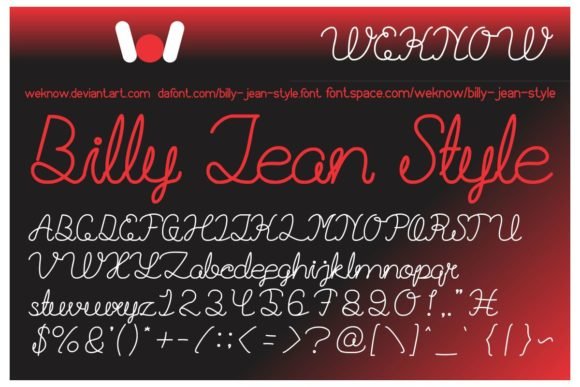
The Font that Steals the Show: Elevate Your Designs with Billie Jean Font
You know that moment when you’re working on a design project, and everything just falls into place? The colors, the layout, the text – it all comes together to create something truly special. For designers, that “aha” moment is what makes all the hard work worth it. And what’s often the secret to making that happen? The right font.
Enter Billie Jean Font, a script font with a dynamic feel that’s guaranteed to take your designs to the next level. This stylish font is perfect for adding a touch of elegance and sophistication to your projects. Whether you’re working on a logo, a brochure, or a website, Billie Jean Font is the perfect choice to make your designs stand out.
Billie Jean Font Key Features
- Unique Characteristics: Billie Jean features a unique, handwritten style with subtle imperfections, giving it a personal and artistic touch.
- Font Style: The font is available in a single style, making it easy to use and versatile for various design projects.
- Language Support: Billie Jean supports a wide range of languages, including Latin, Cyrillic, and Greek alphabets, making it suitable for international designs.
Billie Jean Font Review
When I first laid eyes on the Billie Jean Font, I was struck by its unique blend of elegance and playfulness. ✨ The font’s fluid lines and organic feel give it a distinct charm that’s hard to resist. It’s clear that the designer aimed to create a font that’s both stylish and approachable.
One of the strengths of Billie Jean Font is its versatility. ✨ It can be used in a wide range of applications, from body text to headings, and even as a title font. The font’s high x-height and generous line spacing make it easy to read, even at smaller sizes.
- Unique blend of elegance and playfulness
- Fluid lines and organic feel
- High x-height and generous line spacing for easy reading
- Versatility in use
- May not be suitable for formal or conservative designs
- Some characters may require manual kerning for optimal spacing
Overall, I think Billie Jean Font is a great choice for designers who want to add a touch of whimsy and personality to their projects. With its unique style and versatility, it’s a font that’s sure to make a statement. However, it’s not without its limitations, and designers should be aware of these before using it in their designs.
For a professional look, pair Billie Jean with a clean and simple background, and use it sparingly to create emphasis.
For a unique look, experiment with layer blending modes and opacity to create a distressed or vintage effect.
For a clean and professional look, use Billie Jean in headings and titles, and pair it with a clear and concise font for body text.
Billie Jean Font is ideal for:
- Music-related designs, such as album artwork or concert posters.
- Vintage-inspired designs, such as retro-style advertisements or social media graphics.
- Emphasizing headings and titles in a design, to create a bold and eye-catching effect.
Alternatives to Billie Jean Font
Playfair Display is an elegant, high-end serif font perfect for luxury branding and high-end designs. It’s ideal for use in logos, headings, and body text where a touch of sophistication is desired.
Comparison to Billie Jean Font: While Billie Jean Font has a strong, modern feel, Playfair Display is more traditional and ornate. Playfair Display is suitable for more formal designs, whereas Billie Jean Font is often used in casual and modern contexts.
What are the technical details of the Billie Jean Font?
The Billie Jean Font is available in several font formats, including OpenType (OTF), TrueType (TTF), and Web Open Font Format (WOFF). It supports Unicode characters and is optimized for display on digital devices. The font has a high x-height, making it suitable for reading on screens and in small sizes.